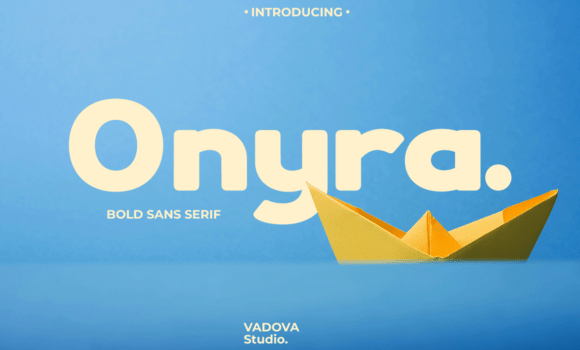
onyra
Onyra Font – Free Download Introduction to Onyra Font Onyra is a bold and rounded sans serif font designed to radiate warmth, friendliness, and clarity. 📸 Preview Gallery 6 images 📌 Product Name Onyra Font 👤 Author Vadova Std 📂